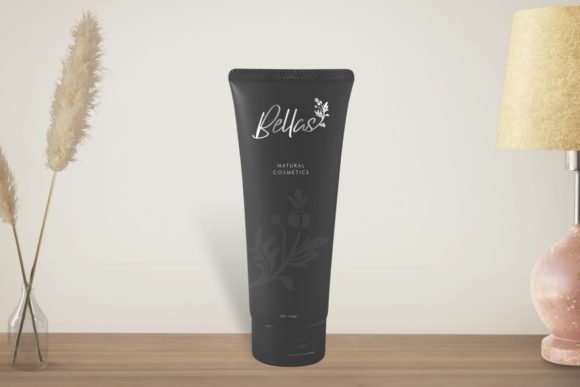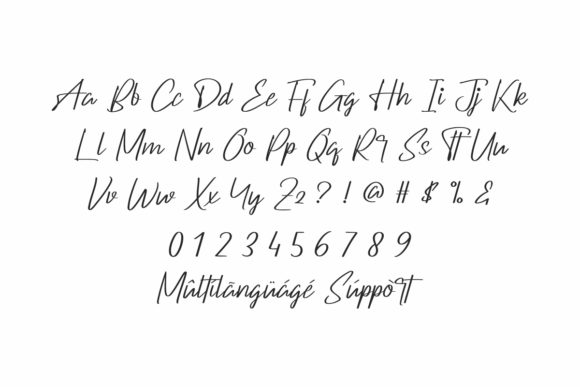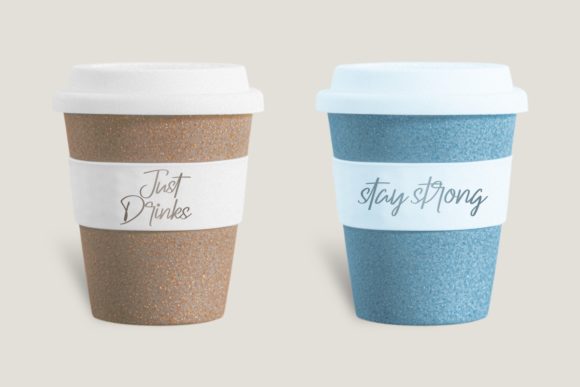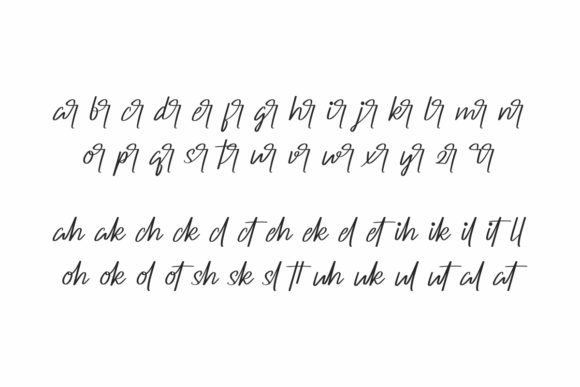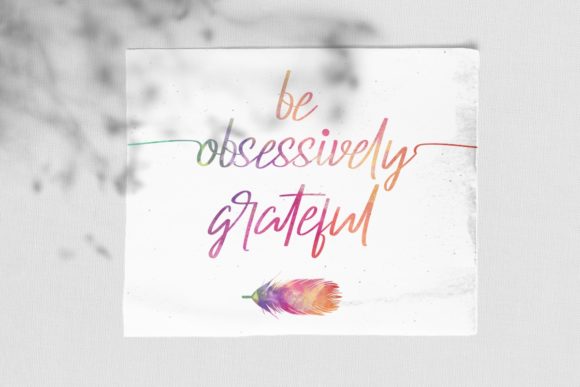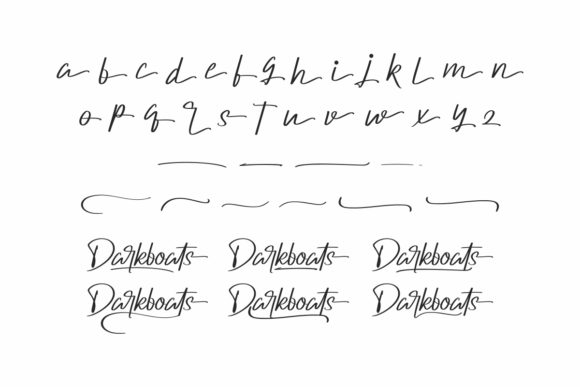
Introduction to Darkboats Font
Darkboats is a sophisticated paint brushed script font.
It is the best choice for creating eye catching logos, branding and quotes This font is PUA encoded which means you can access all of the glyphs and swashes with ease.
Key Features of Darkboats Font